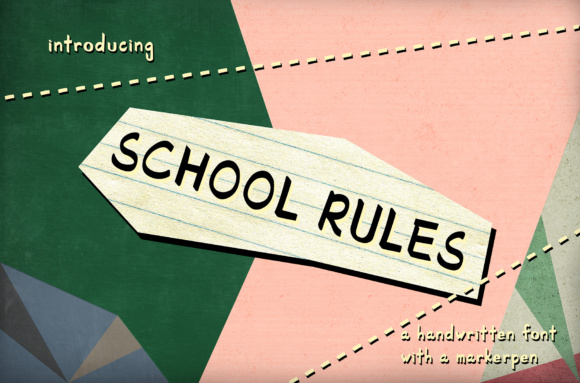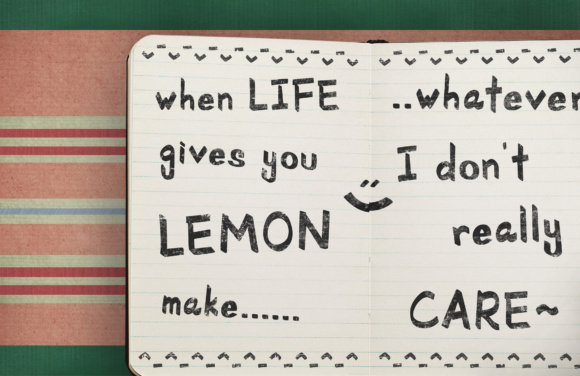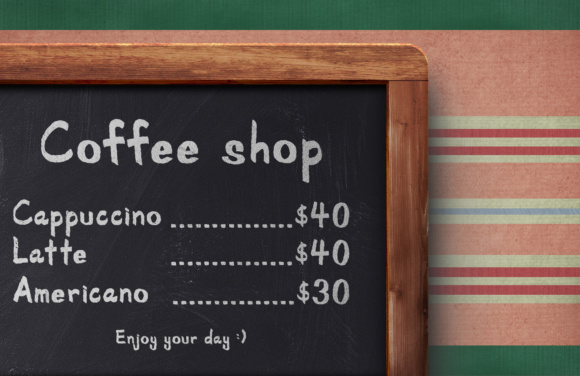
HomeScript FontsSchool Rules Font Script Fonts School Rules Font FacebookXPinterestWhatsApp School Rules Font Poster 2 School Rules Font Poster 3 About School Rules Font School Rules is a handwritten font created with a markerpen. DOWNLOAD NOW People also explored Peudada Font Foliage Font Celestial Font Surrender Font Beauty Font Sligature Font Tomket Boys Font Sigajaya Font Helsinki Font 296 0 TagsSchool Rules Font Previous articleFriyay FontNext articleDalmatins Font LEAVE A REPLY Cancel reply Comment: Please enter your comment! Name:* Please enter your name here Email:* You have entered an incorrect email address! Please enter your email address here Website: Save my name, email, and website in this browser for the next time I comment. Personal Use Free Wanita Cantik Personal Use Free Read more about this font Lovetle Personal Use Free Read more about this font Earwig Factory Personal Use Free Read more about this font Nugo Sans Personal Use Free Read more about this font BLOG Exploring Font Trends Shaping Communication in the Digital Era Fonts, like all design elements, are subject to trends. They play a crucial role in communicating a brand's personality,... How to Cut Any Font on Cricut: Convert a Font to SVG (Free) Top 7 Google Fonts Alternatives for Faster and Privacy-Friendly Web Design (2025) Where to Buy American Fonts Online in 2024